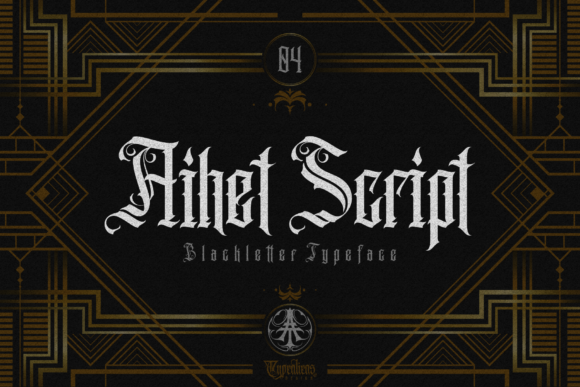
Unveil the Beauty of Blackletter Art with Aihet Script Font: A Timeless Masterpiece
In the realm of typography, Aihet Script Font stands as a testament to the enduring beauty of blackletter art. This exquisite font, meticulously crafted by typealiens, captures the essence of timeless elegance and transports you to an era of handwritten manuscripts and ancient scrolls. Its bold strokes and intricate flourishes exude an air of sophistication and charm, making it the perfect choice for designers seeking to create captivating designs, logos, invitations, and other projects that demand a touch of timeless appeal.
Immerse yourself in the world of blackletter calligraphy with Aihet Script Font. Its distinctive letterforms, reminiscent of medieval manuscripts, evoke a sense of history and tradition. Each glyph is a work of art, carefully designed to maintain the integrity of the blackletter style while adding a touch of modernity. The result is a font that is both classic and contemporary, appealing to audiences of all ages and backgrounds.
With Aihet Script Font at your disposal, you can effortlessly elevate your designs and captivate your audience. Its versatility shines through in a wide range of applications, from wedding invitations and posters to branding and social media graphics. Whether you seek to create a vintage-inspired design or add a touch of elegance to your modern projects, Aihet Script Font delivers exceptional results every time.
Step into the world of Aihet Script Font and discover a font that is both visually stunning and versatile. Its blackletter charm, combined with its contemporary appeal, makes it an essential tool for any designer's toolkit. Download Aihet Script Font today and embark on a journey through time, where classic beauty meets modern elegance.